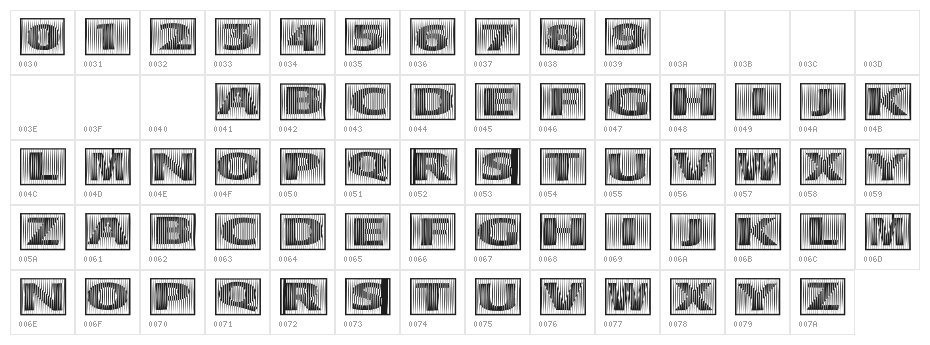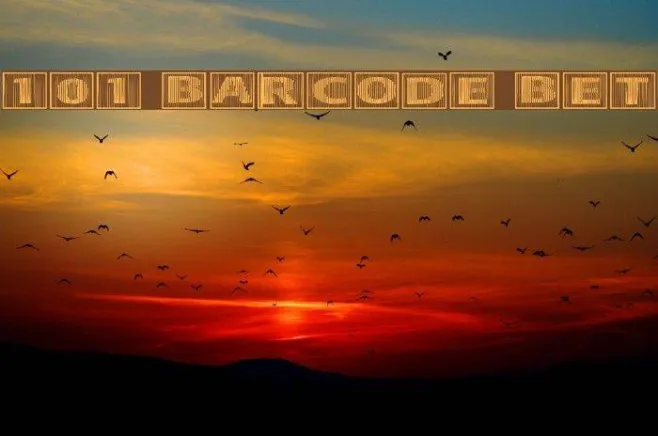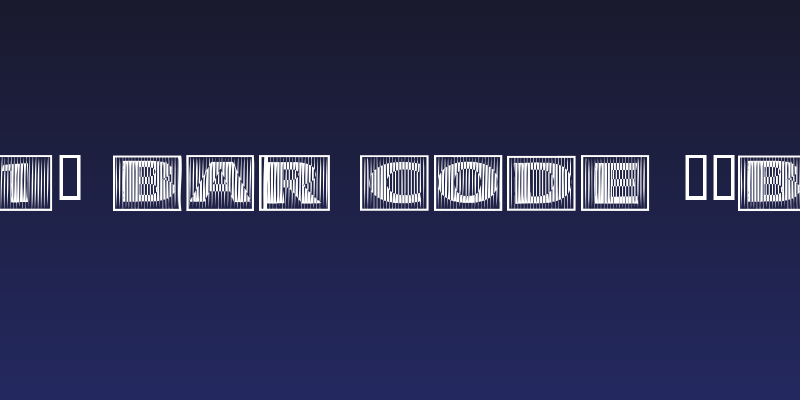
101! BarCode 'Bet Font
101! BarCode 'Bet Description
This font features a distinctive barcode-like design, where each character is composed of vertical lines that mimic the appearance of a barcode. The letters and numbers are enclosed within rectangular frames, enhancing the barcode effect. The style is highly decorative and unconventional, making it stand out for unique design projects. The characters are evenly spaced within their frames, providing a consistent and structured look. This font is ideal for creative and modern designs that require a bold statement.
Proposed ProjectsIdeal for branding, posters, album covers, and any project seeking a modern, edgy aesthetic.